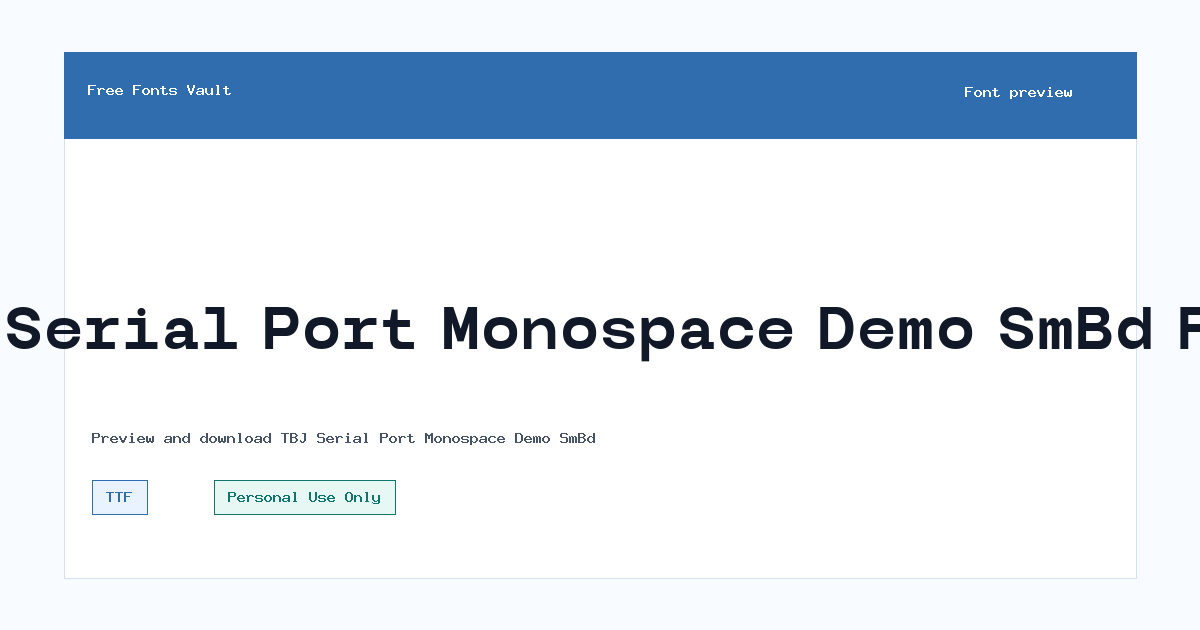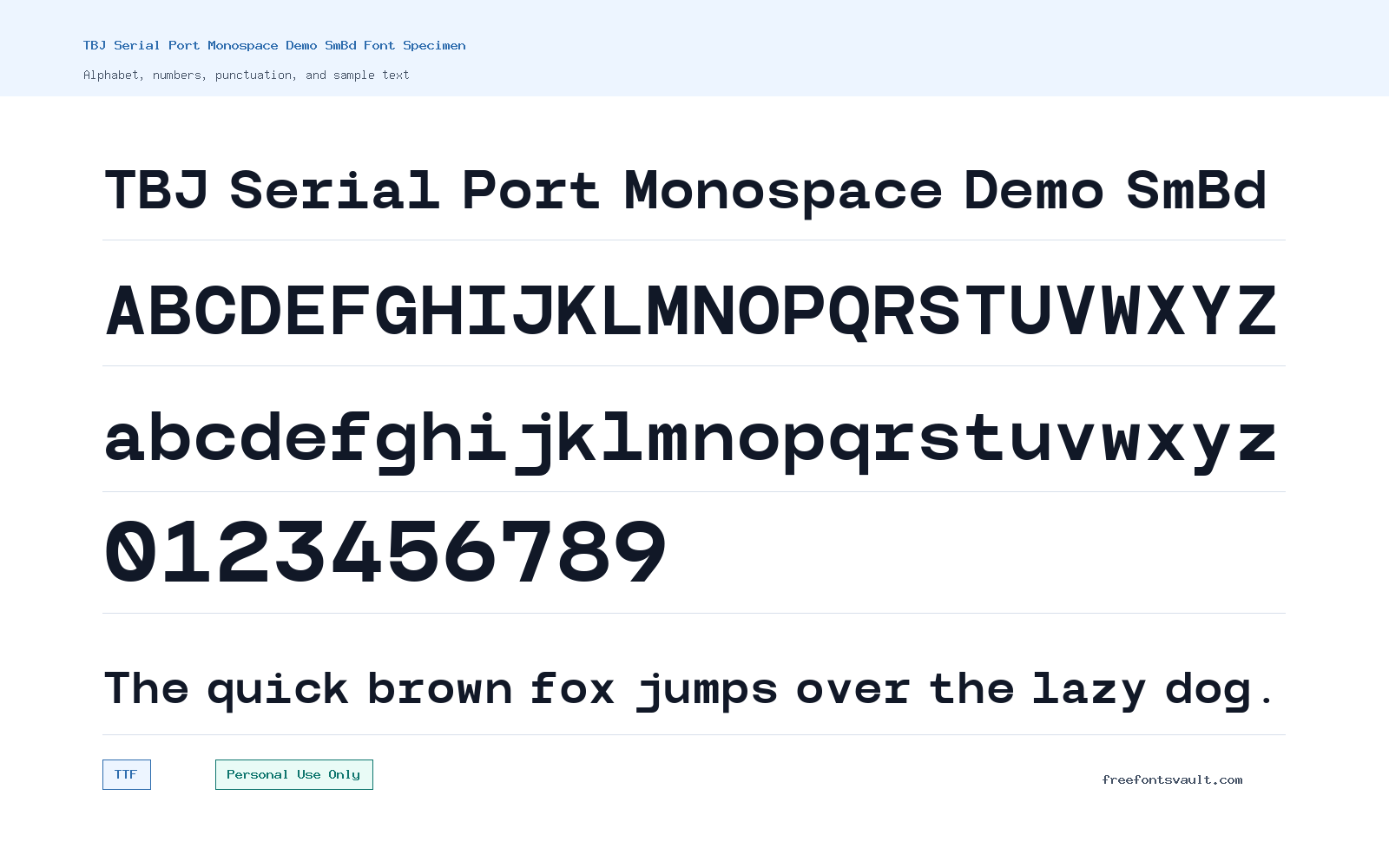
TBJ Serial Port Monospace Demo SmBd
TBJ Serial Port Monospace Demo SmBd font.
TBJ Serial Port Monospace Demo SmBd is a demo monospace font with a technical, squared-off feel that suits short display text, digital-style graphics, and design tests where even spacing matters.
About TBJ Serial Port Monospace Demo SmBd
TBJ Serial Port Monospace Demo SmBd is best approached as a display-focused monospace typeface rather than a long-reading text face. The name points clearly toward a serial-port or terminal-inspired direction, and the monospace structure gives every character the same horizontal space. That makes it useful when you want text to feel ordered, mechanical, or system-like. It can work well for short titles, UI-flavored poster text, coding-themed graphics, tech event artwork, game interface mockups, product labels, and social posts where a controlled grid look is part of the design.
- Monospace structure, useful for grid-based layouts, technical themes, interface mockups, and short display settings.
- Normal style with a regular variant entry, making it straightforward to test without choosing between multiple weights.
- Works best when the text is short enough for the spacing and mechanical rhythm to feel intentional.
- Tech posters, software-themed graphics, terminal-inspired artwork, and coding event visuals.
- Logo concepts, wordmarks, badges, labels, and title treatments that need a compact monospace look.
- Website hero mockups, app interface experiments, dashboards, and digital product presentations.
- Social media graphics, thumbnails, banners, and cover images where a structured display font can carry the headline.
- Testing numbers, filenames, short commands, labels, and other text where equal-width characters are visually useful.
For best results, use TBJ Serial Port Monospace Demo SmBd in short, deliberate text settings. Start with headlines, labels, short names, interface words, numeric strings, and poster titles. Increase letter spacing slightly if the shapes feel crowded, and avoid using it for long paragraphs unless the goal is a very specific technical texture. For logo work, convert test text to outlines only after checking the license terms and keeping an editable copy. When pairing, let this font handle the strong visual moment, then use a neutral sans serif for descriptions, navigation, captions, and longer information.
What kind of font is TBJ Serial Port Monospace Demo SmBd?
It is a monospace demo font. Its equal-width character spacing makes it a good fit for technical, interface, coding, and digital-style display text.
Is this a good font for body text?
It is better for short display text than long paragraphs. Monospace fonts can be useful for labels and technical layouts, but they may feel rigid in extended reading.